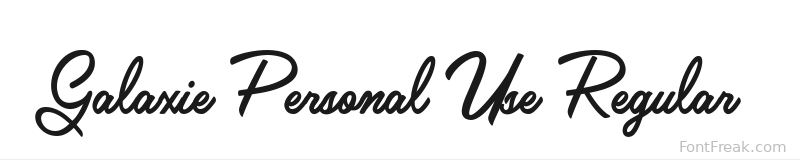
Galaxie Personal Use Regular
About Galaxie Personal Use Regular
The Galaxie Personal Use Regular font, designed by Billy Argel Fonts, is a captivating handwritten script that exudes charm and personality. As a display font, it showcases an elegant and flowing style, perfect for projects that seek to convey warmth and creativity. The strokes of this font are characterized by a medium weight with a gentle contrast, providing a balanced appearance that remains legible while adding a touch of flair. The spacing is thoughtfully arranged, ensuring that each letter connects seamlessly, enhancing its handwritten feel.
This font is particularly well-suited for a variety of creative applications. Designers can utilize it for wedding invitations, where its romantic curves can beautifully set the tone for a special day. It also shines in creating eye-catching movie posters, adding a unique touch that draws in viewers. Restaurant menus can benefit from the font's inviting style, making dishes appear more appealing and enticing. Additionally, content creators will find it perfect for social media graphics and personal branding, as it helps to establish a memorable visual identity.
What sets the Galaxie Personal Use Regular font apart is its ability to blend elegance with a casual vibe, making it suitable for both formal and informal contexts. Its distinctive handwritten qualities allow it to stand out in a crowded marketplace, ensuring that your designs will not only capture attention but also resonate with your audience.